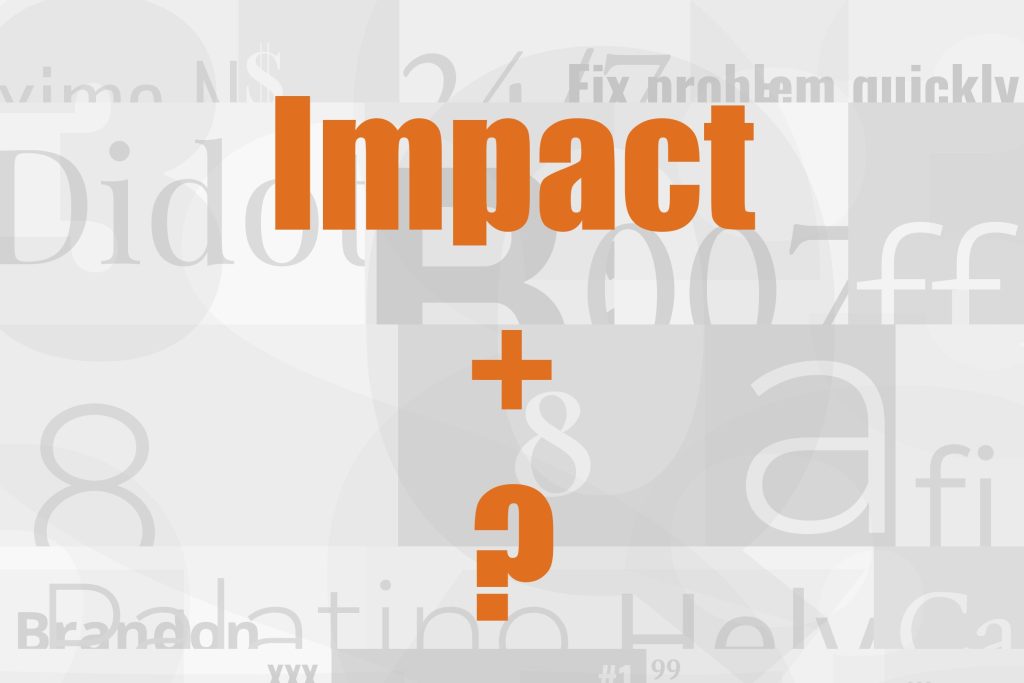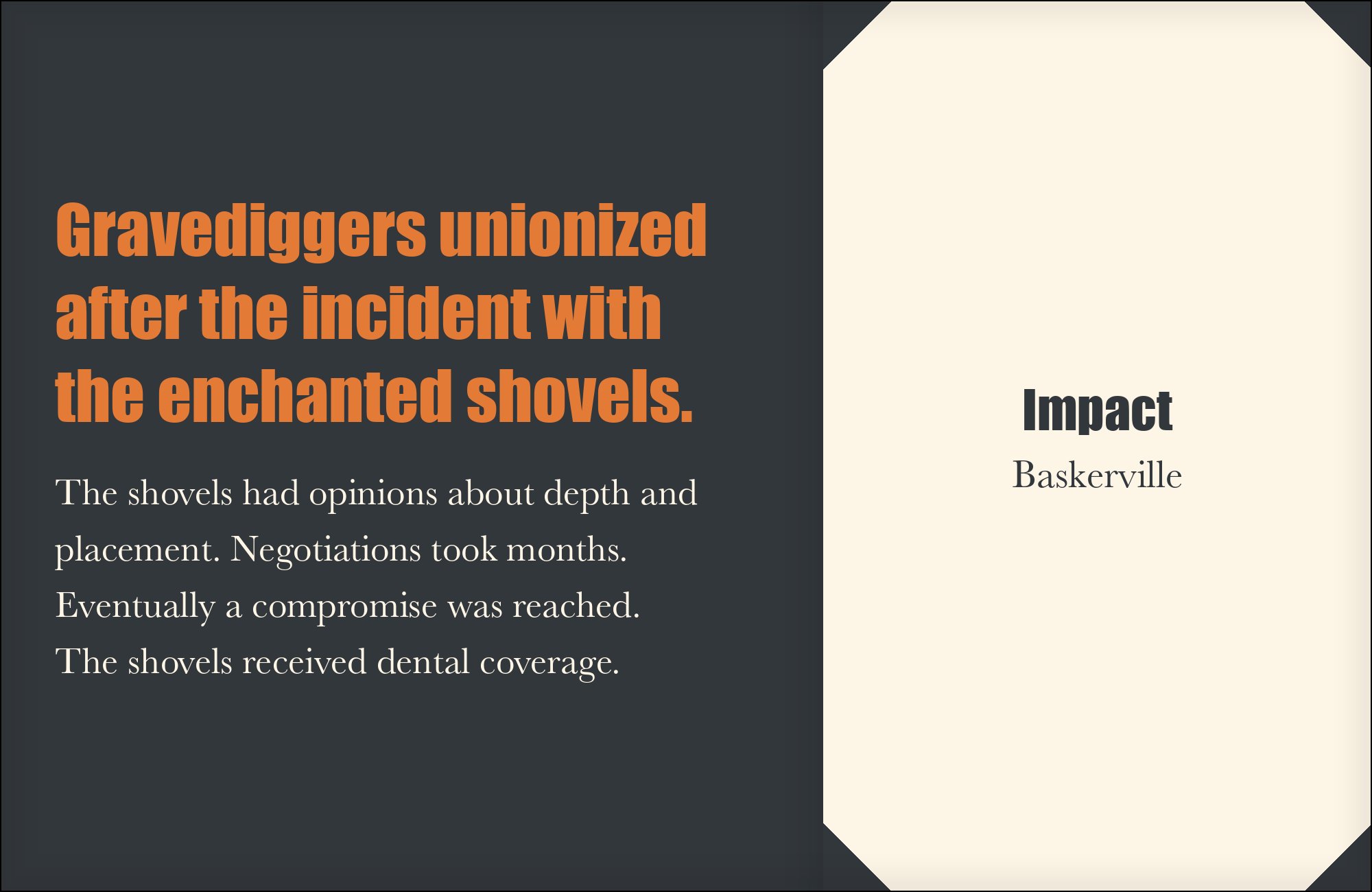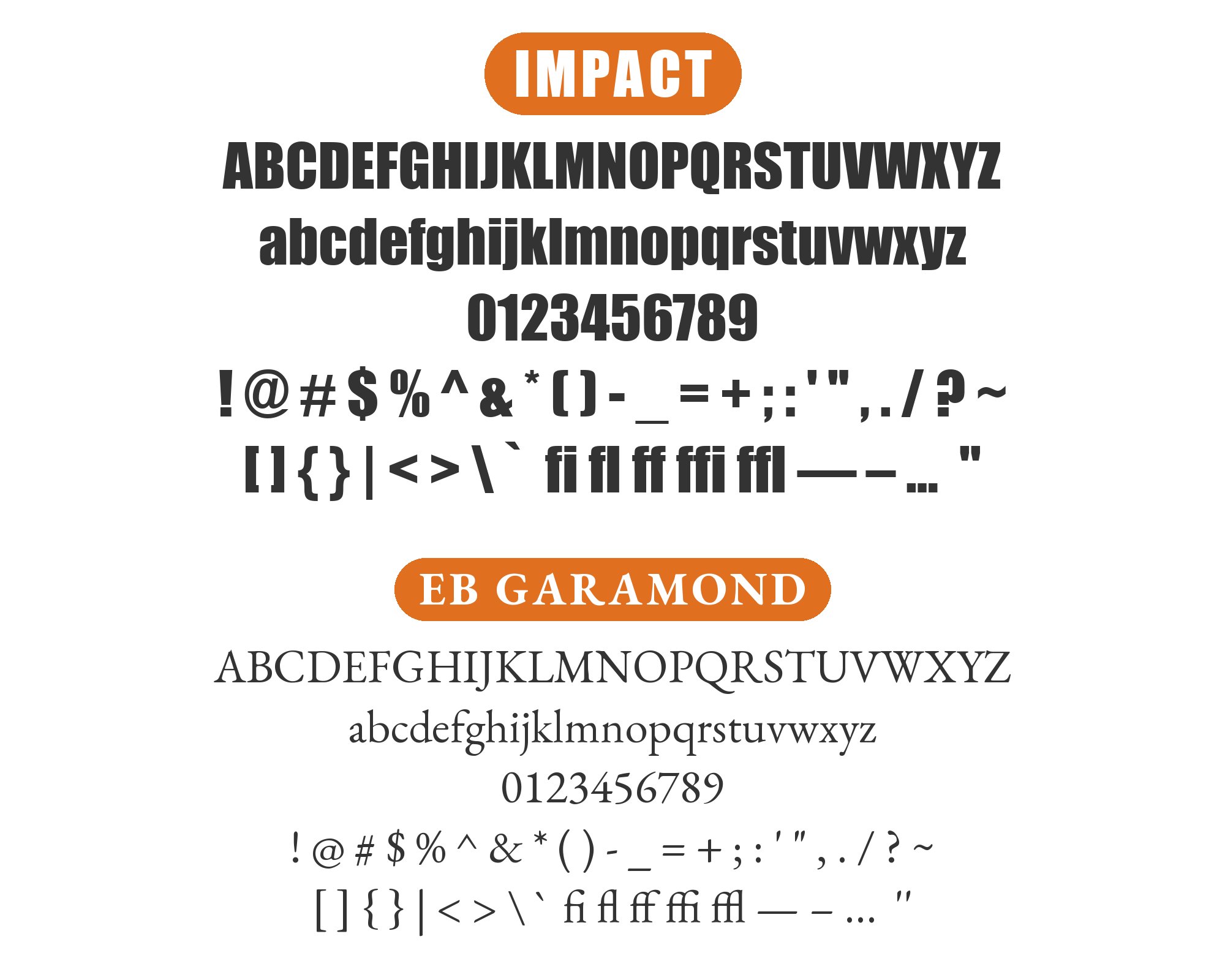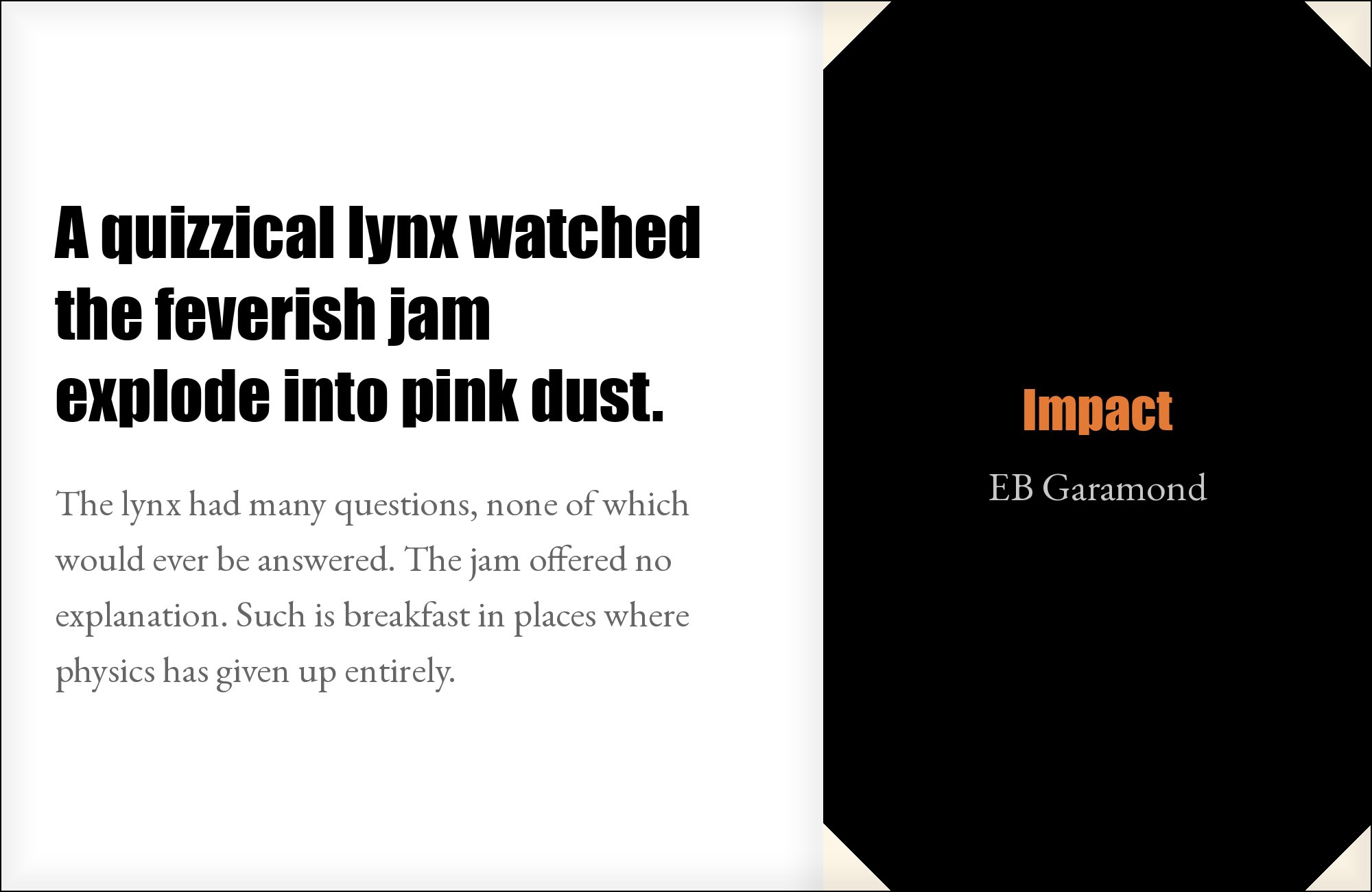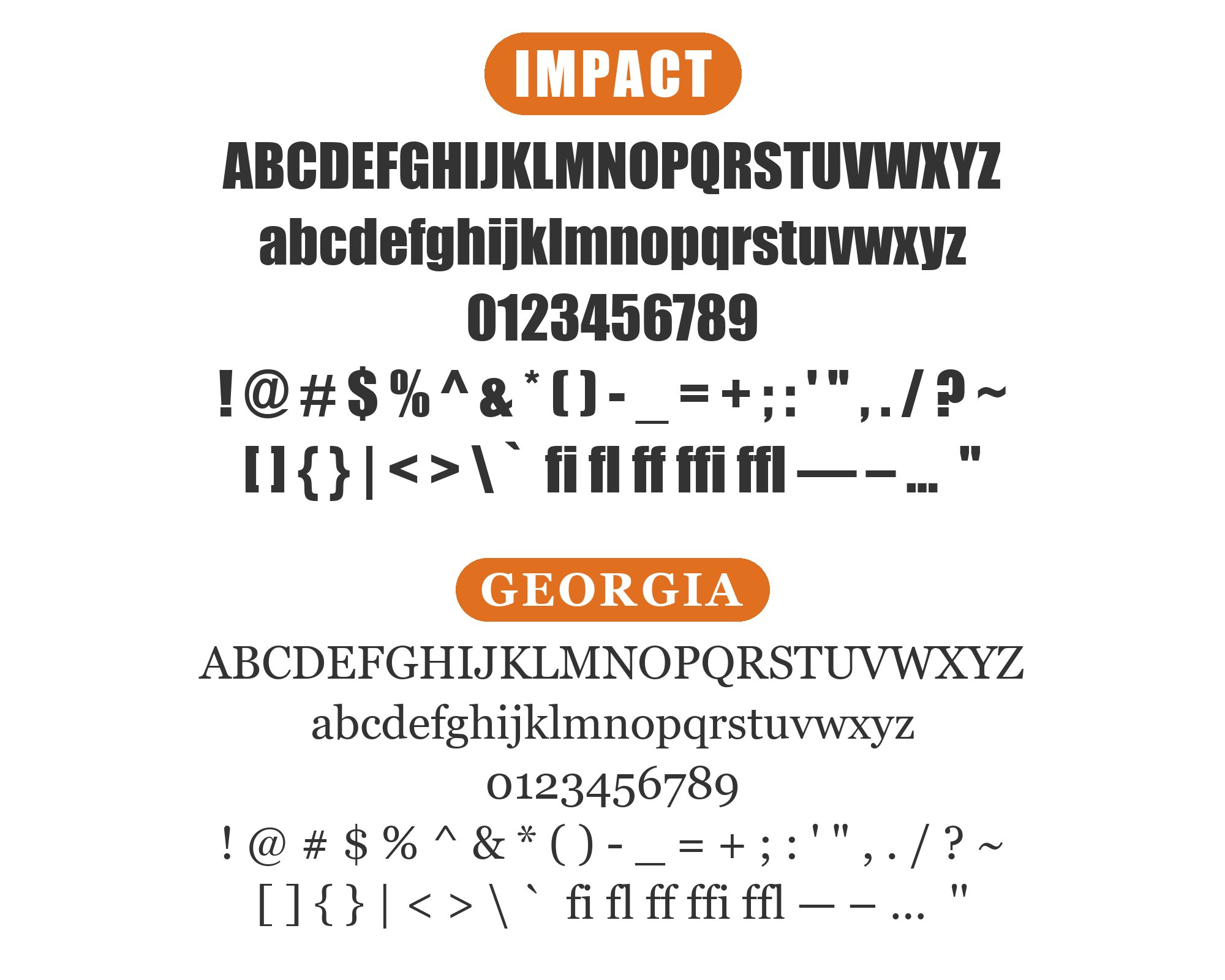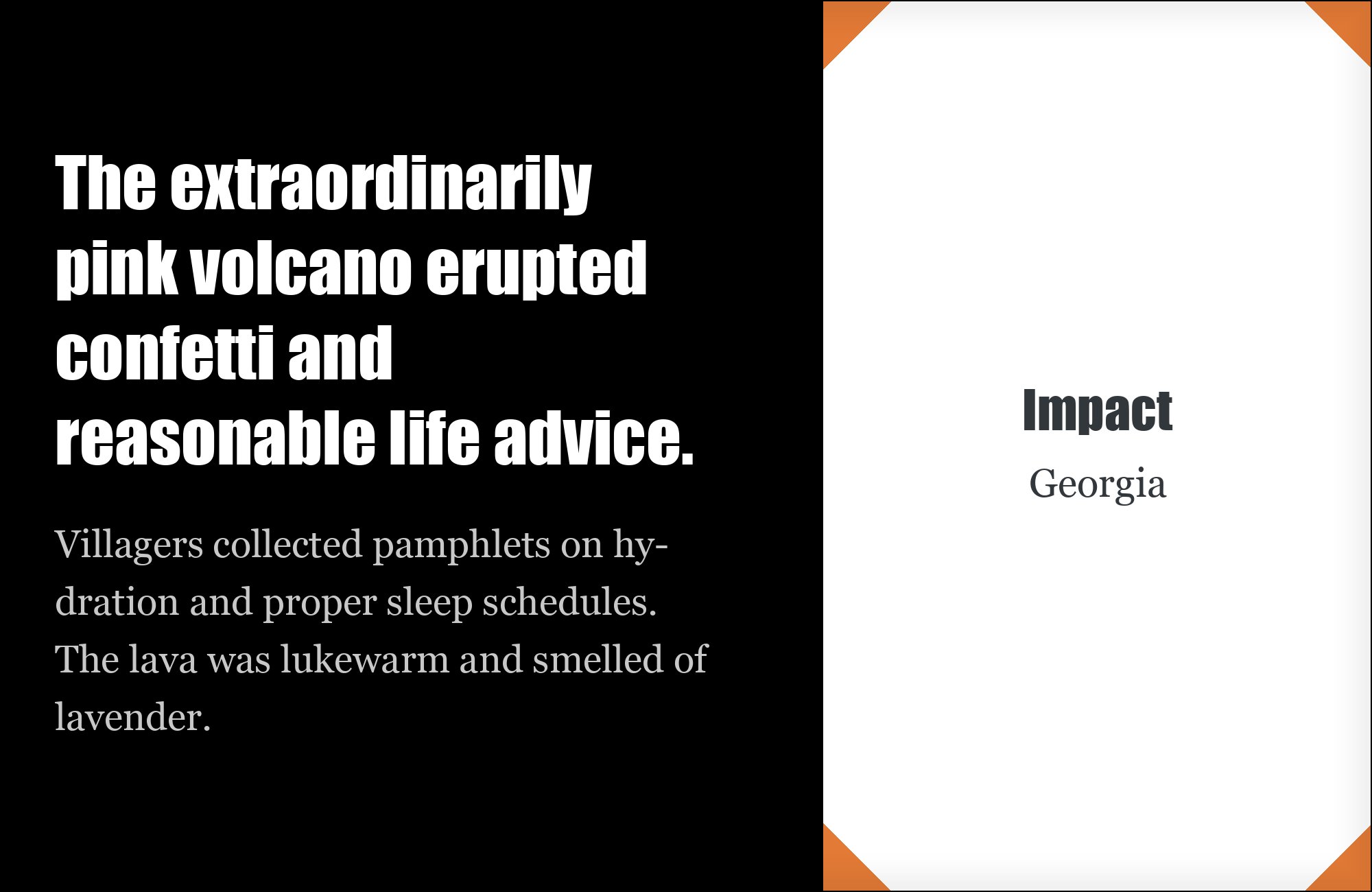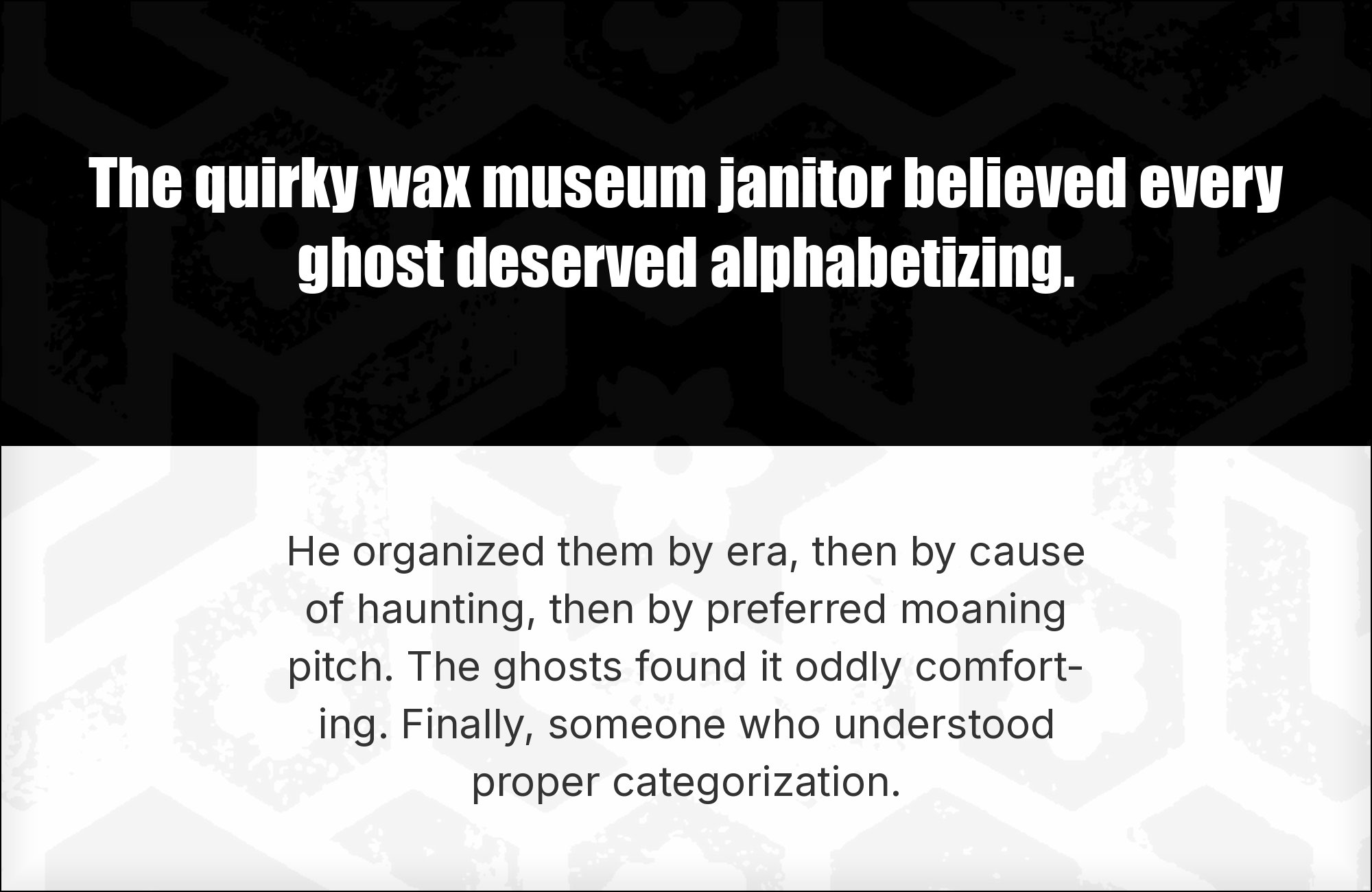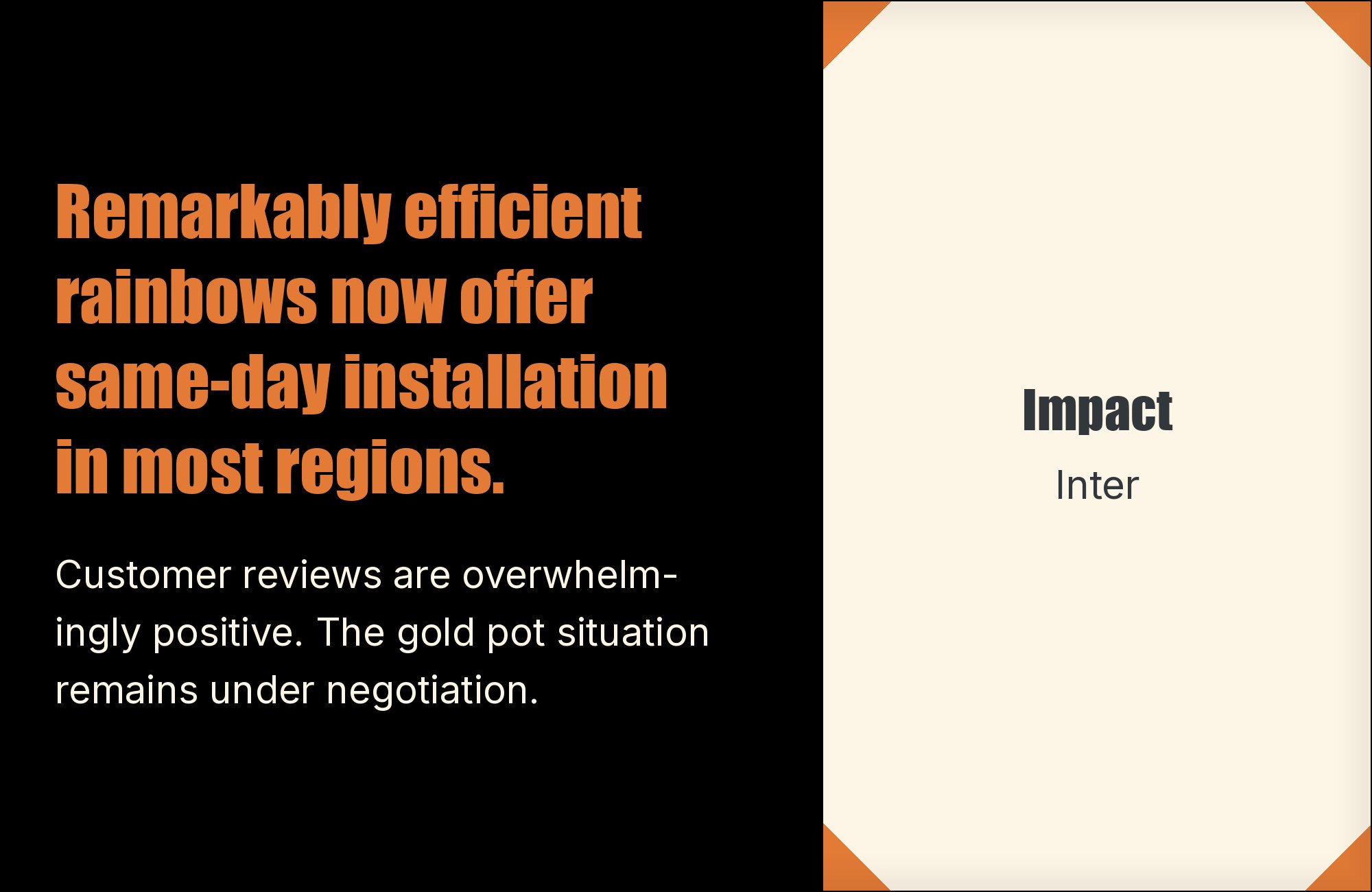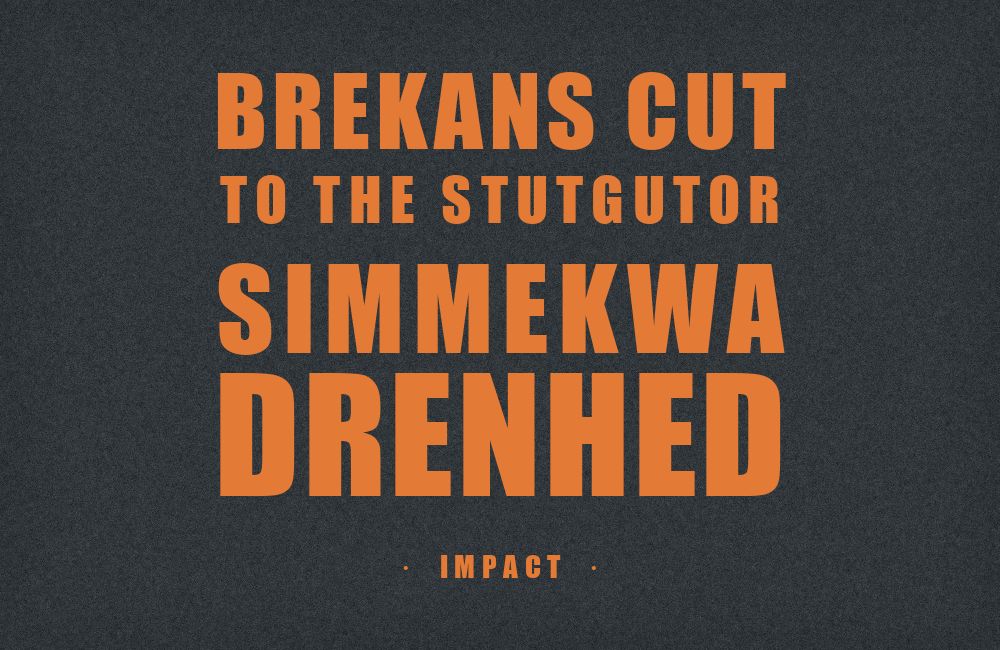
Impact pairs great with Baskerville, EB Garamond and Work Sans. All 5 pairings are shown below in real rendered specimens, with the reason each one works.
Almost nothing pairs with Impact, and that is by design. It ships as one weight, one width, and one job: shout a headline. Below are the small number of faces that genuinely work beside it, why each one barely succeeds, and what to reach for instead if the project needs more than a single loud line.
Why Impact resists pairing
Geoffrey Lee drew Impact in 1965 for the Stephenson Blake foundry, during a vogue for bold condensed faces. It ships as a single style: no light, no regular, no italic, nothing to build a hierarchy against from inside its own family. Impact later became familiar through image macros and internet memes. Its condensed bulk reads as loud at almost any size. A face with no internal range cannot supply its own contrast, so every pairing decision has to import that contrast from somewhere else, and most fonts brought in beside it either fight its weight or vanish under it.
1. Baskerville
Impact’s blunt industrial bulk reads as an accident, or a joke, unless the body copy underneath carries obvious pedigree. Baskerville’s transitional-serif refinement and calm, generous readability supply exactly that credibility, which is the one thing Impact’s meme reputation actively works against. Typewolf suggests Impact with Baskerville. It is the most defensible pairing on this list because the two faces are doing opposite jobs on purpose: historical pedigree in the text, industrial force in the headline. It works best in print and editorial contexts where the page needs to signal that the shouting up top was a deliberate choice.
2. EB Garamond
EB Garamond revives Claude Garamont’s humanist types from the mid-sixteenth century. Set as body copy under an Impact headline, the gap in both weight and history reads as a considered editorial layout rather than a gag. It is a quieter, more literary version of the Baskerville pairing above, and it barely works for the same reason: the contrast is doing all the labor, and if the headline is set too large the two faces still look like they wandered in from different documents.
3. Work Sans
Work Sans takes its cues from early grotesques, with middle weights optimized for on-screen text at medium sizes. Against Impact’s extreme condensed weight it supplies a neutral workhorse for body copy and UI chrome, quiet where Impact shouts. This is the safest pairing here precisely because it has no personality to argue with Impact’s. It is not an interesting combination and it is not trying to be; it is the pairing to reach for when the goal is a functional banner or social graphic, not a designed page.
4. Georgia
Georgia was designed to stay legible at small sizes and on low-resolution screens. A Communities In Schools branding manual shows Impact in all caps with Georgia as a substitute campaign pairing. For a banner, meme, or social graphic, let Impact take the short headline and Georgia carry the reading text. It barely qualifies as a design decision so much as a practical one: Georgia’s small-size legibility matters more here than any stylistic kinship with Impact. Use it where the priority is that the caption actually gets read.
5. Inter
Inter is a neutral, highly legible UI grotesque with a full weight range of its own. Keeping body text quiet and systematic lets Impact carry all the shouting as the layout’s one loud voice, which is the safest way to deploy a face this aggressive without the whole page reading like a poster gone wrong. Inter’s advantage over Work Sans is its range — if the design needs a bold subhead between the Impact headline and the body text, Inter can supply it without introducing a second competing display face.
What to use instead
If the project needs more than one shouted line — a real hierarchy of headline, subhead, and body in a single voice — Impact cannot supply it, because it has no other weights to fall back on. Franklin Gothic solves this with an actual family: Book through Heavy, plus condensed cuts, all sharing one skeleton. Neue Helvetica offers nine weights in four widths. Either gives you more related styles to build a hierarchy, instead of forcing a foreign serif into the gaps Impact leaves open.
Impact does not fail at pairing so much as refuse the premise. It has one job, does it loudly, and leaves every other decision — body text, hierarchy, tone — to whatever gets set beside it. The five faces above are not exciting matches; they are the ones that stay out of the way. That is the honest ceiling for this typeface, and it is not a flaw. Pick the quietest partner available, keep it small, and let Impact do the one thing it was built to do.